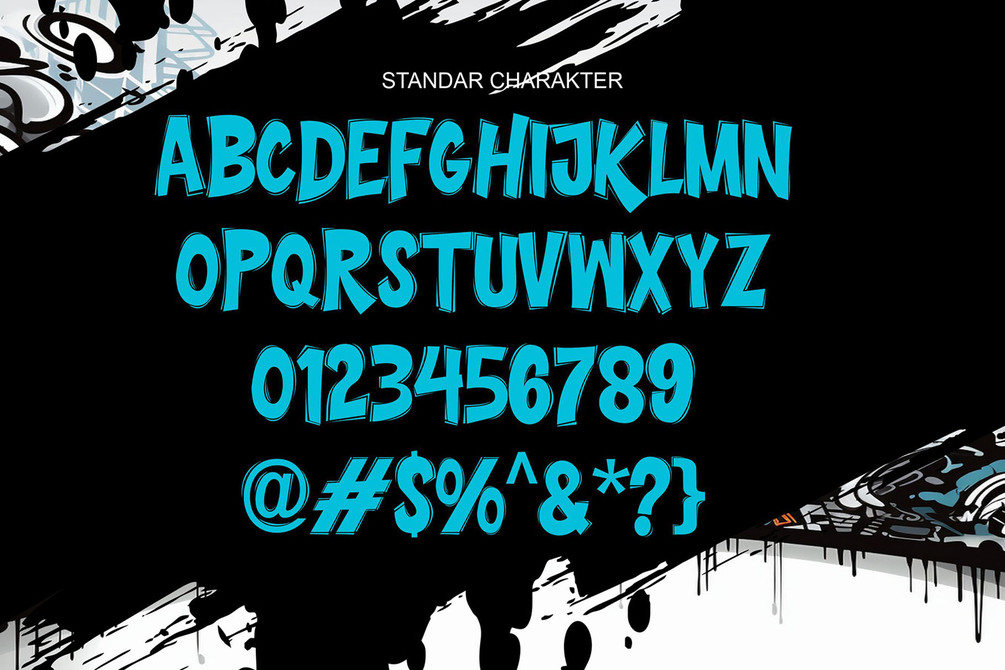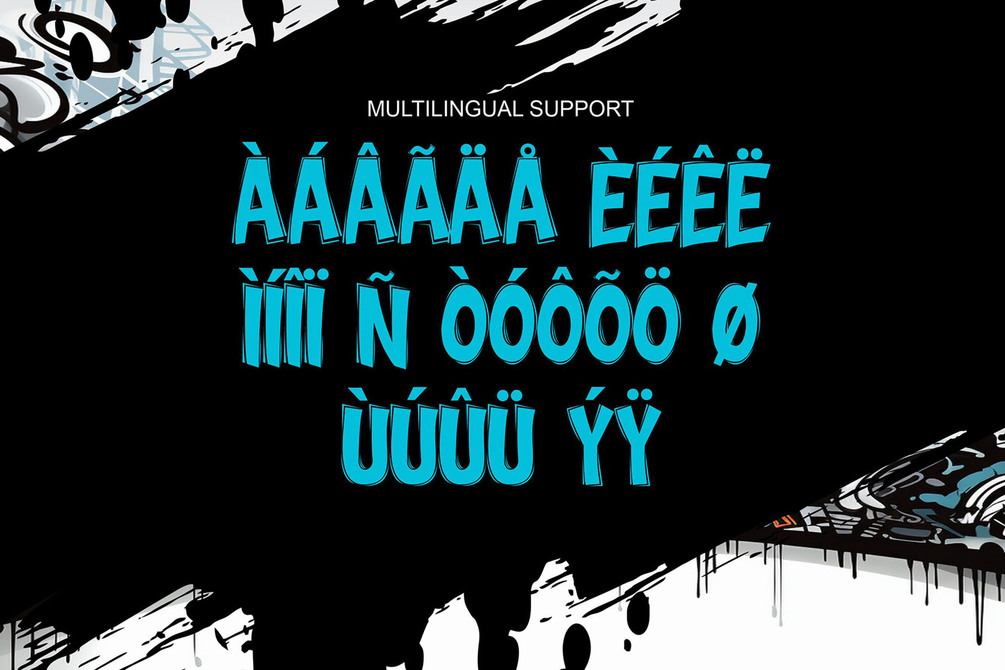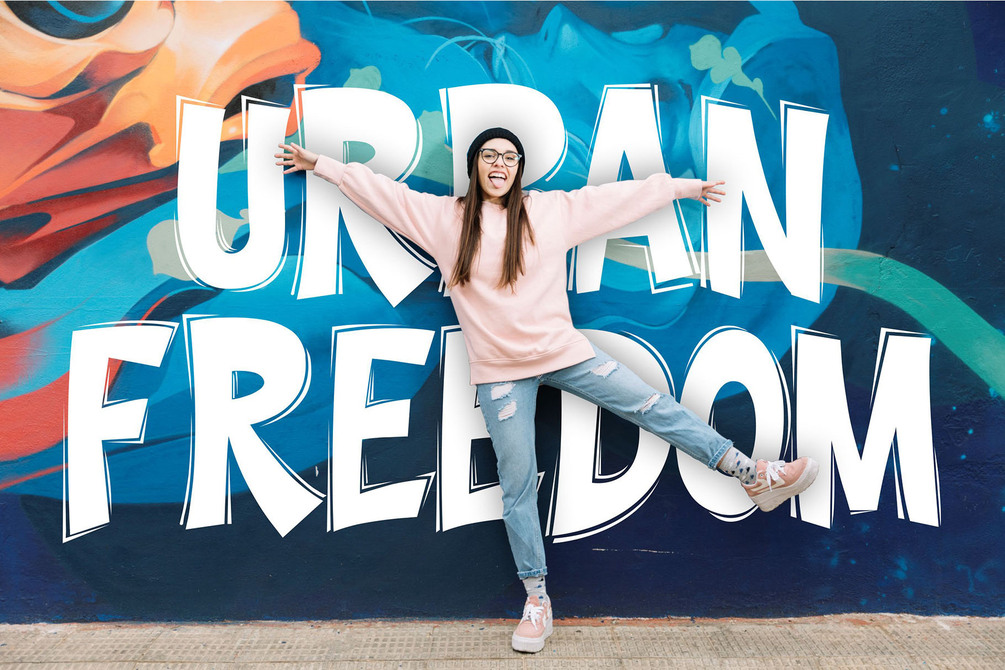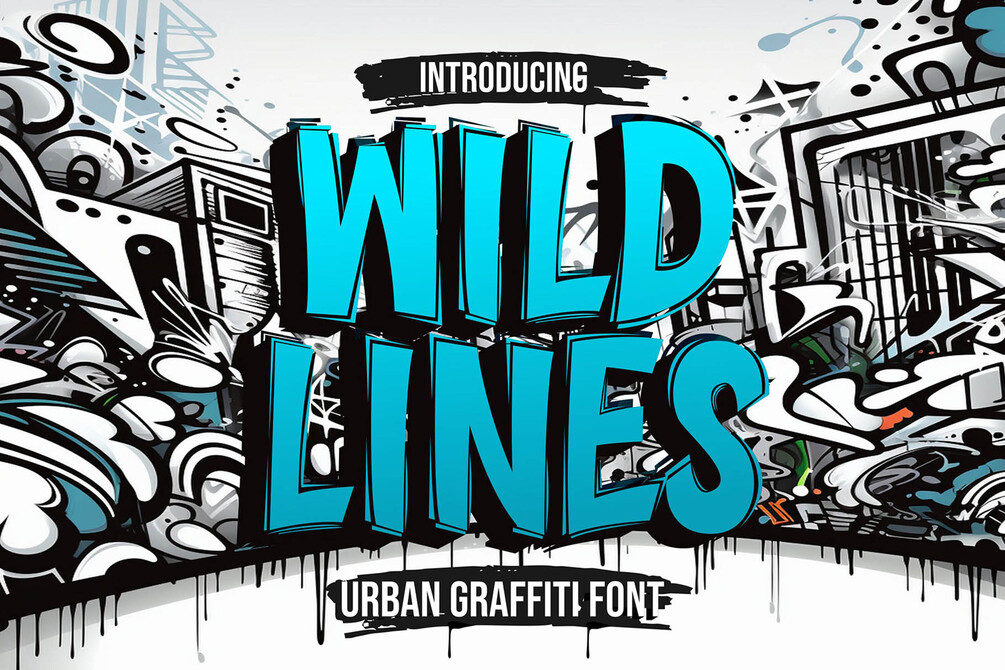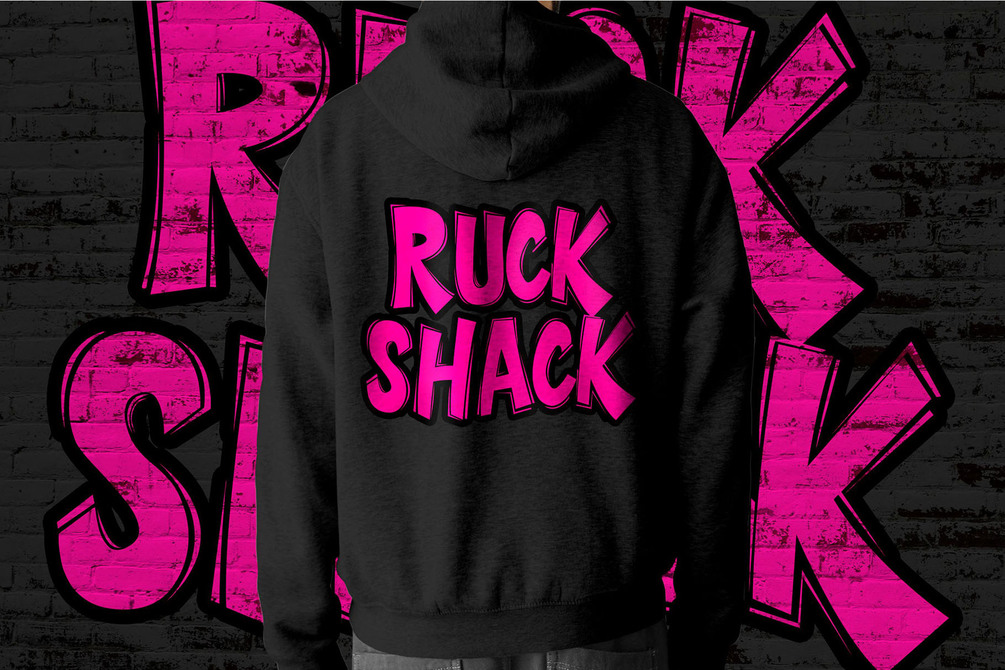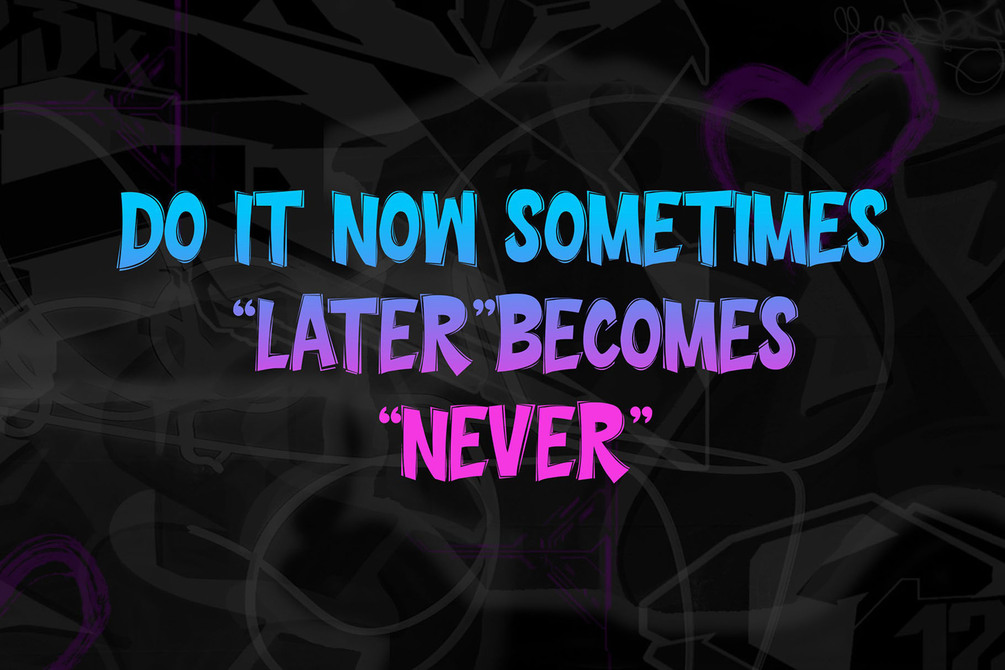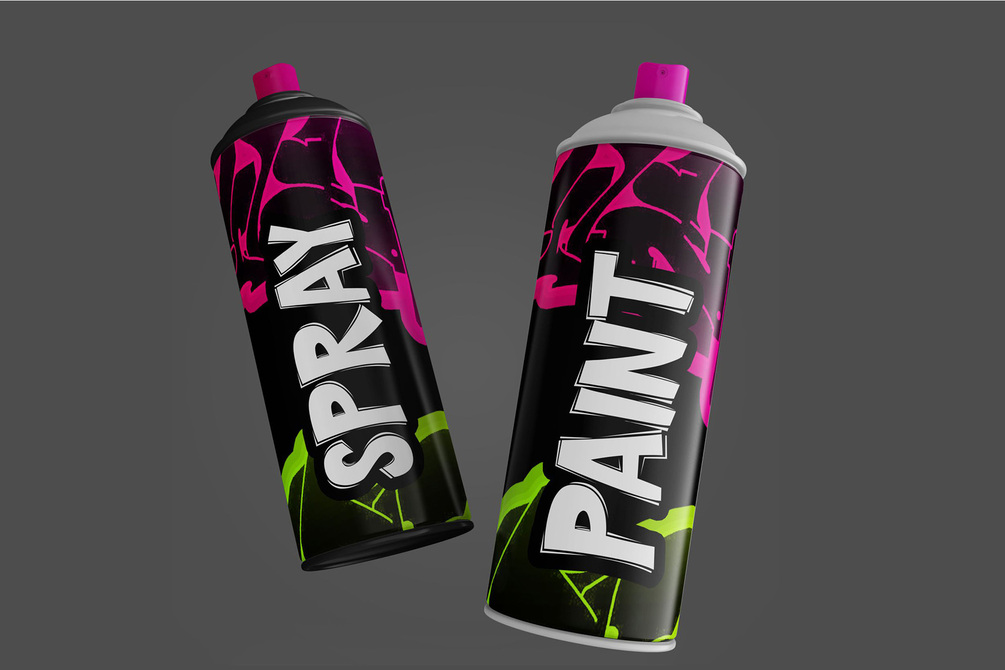
Wild Lines | Decorative Urban Graffiti Font | Instant Download | Cool Canva and Procreate font
"Wild Lines is a straight, urban graffiti font that embodies the raw energy and edginess of street culture. With its clean, linear style, this font brings a sense of structure while maintaining the rebellious feel of graffiti art. Wild Lines is perfect for projects that need an urban, bold aesthetic, making it an ideal choice for posters, branding, album covers, apparel, and any design that calls for a striking, streetwise look. Its straightforward lines add a modern touch to traditional graffiti, giving your work a fresh, city-inspired vibe."
Features
• Multilingual
• Versatile for branding, headline, or printing product
Unleash your creativity with Wild Lines! 💥 Make your designs pop with powerful graffiti vibes and bold Characters with decoration. Grab it now and bring urban flair to your next project!